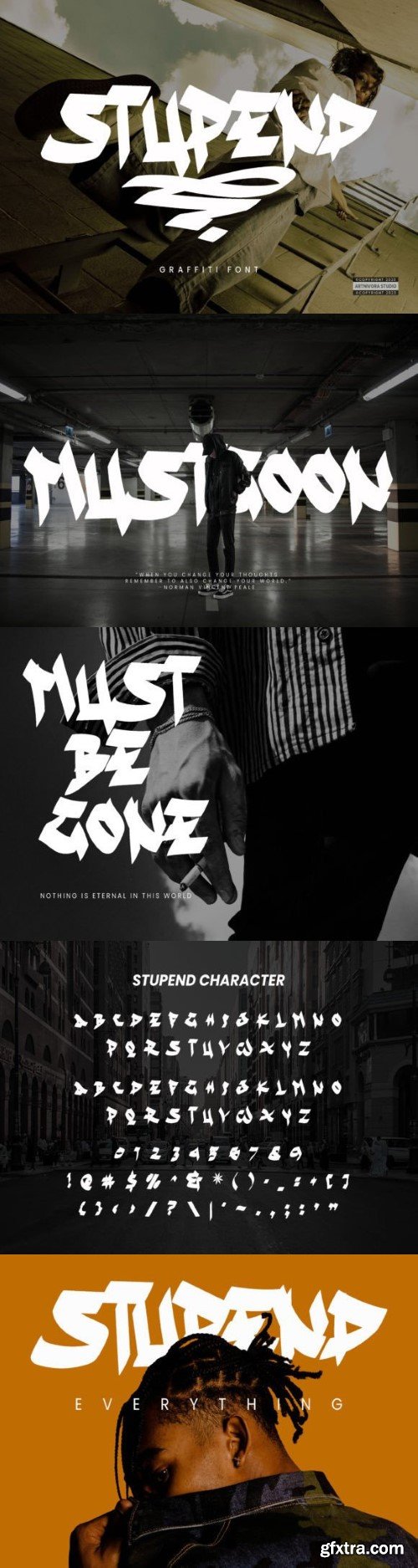
stunning font
Stupend is a simple graffiti display font perfect for you who needs a typeface for logo designs, magazines, social media posts, brochures, and many more. Add it now to your fonts library, and make all your creative projects outstanding!